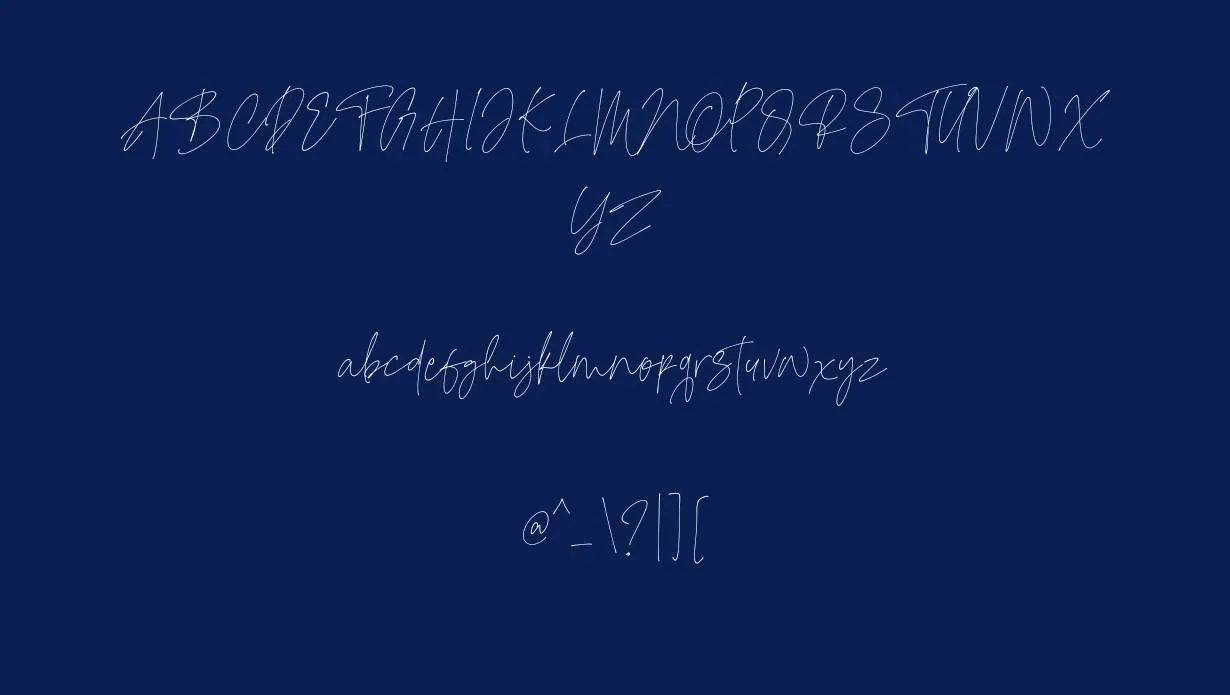
Mode Style Script Font is a fashionable way of presenting text. It was designed by Motokiwo. This font is often selected for projects requiring a modern and sophisticated appearance, such as fashion magazines, luxury brand logos, or trendy event invitations.
With its script-style elegance, Mode Style Script Font transforms words into a visual representation of chic and contemporary aesthetics. It brings a sense of refinement and fashion-forwardness to any design it graces, making it a popular choice for those seeking a touch of glamour in their projects.
Mode Style Script Font